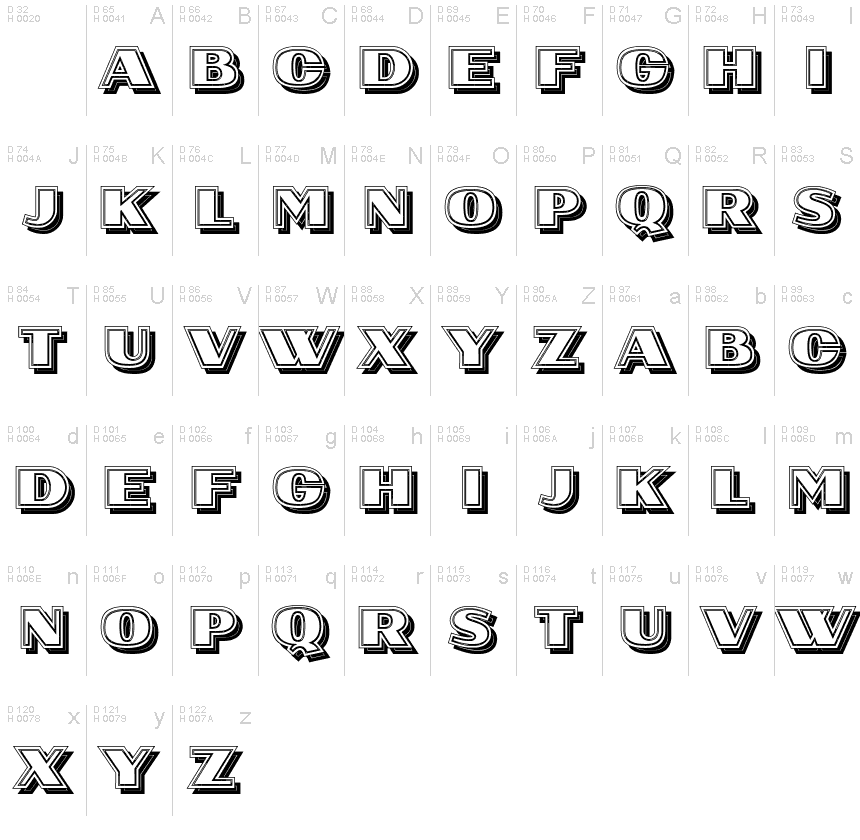
Fill The Round Regular
Fill The Round, a bold and playful display font designed by Vladimir Nikolic, is perfect for projects that require a touch of fun and creativity. With its expanded width and extra-bold weight, it demands attention while still maintaining legibility. This typeface is ideal for designing eye-catching logos, branding materials, and packaging designs that will stand out from the crowd. Whether you're creating posters or social media graphics, Fill The Round adds a unique touch to any project with its whimsical style. Bring your designs to life with Fill The Round!